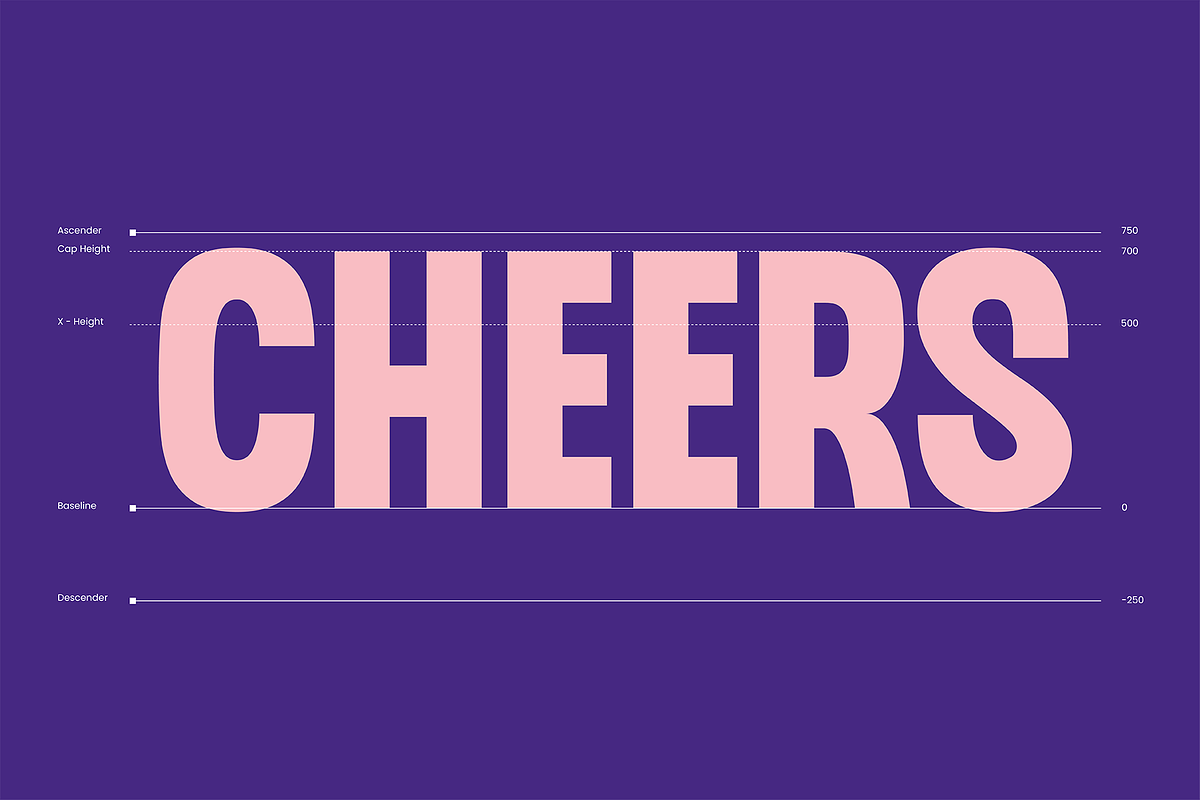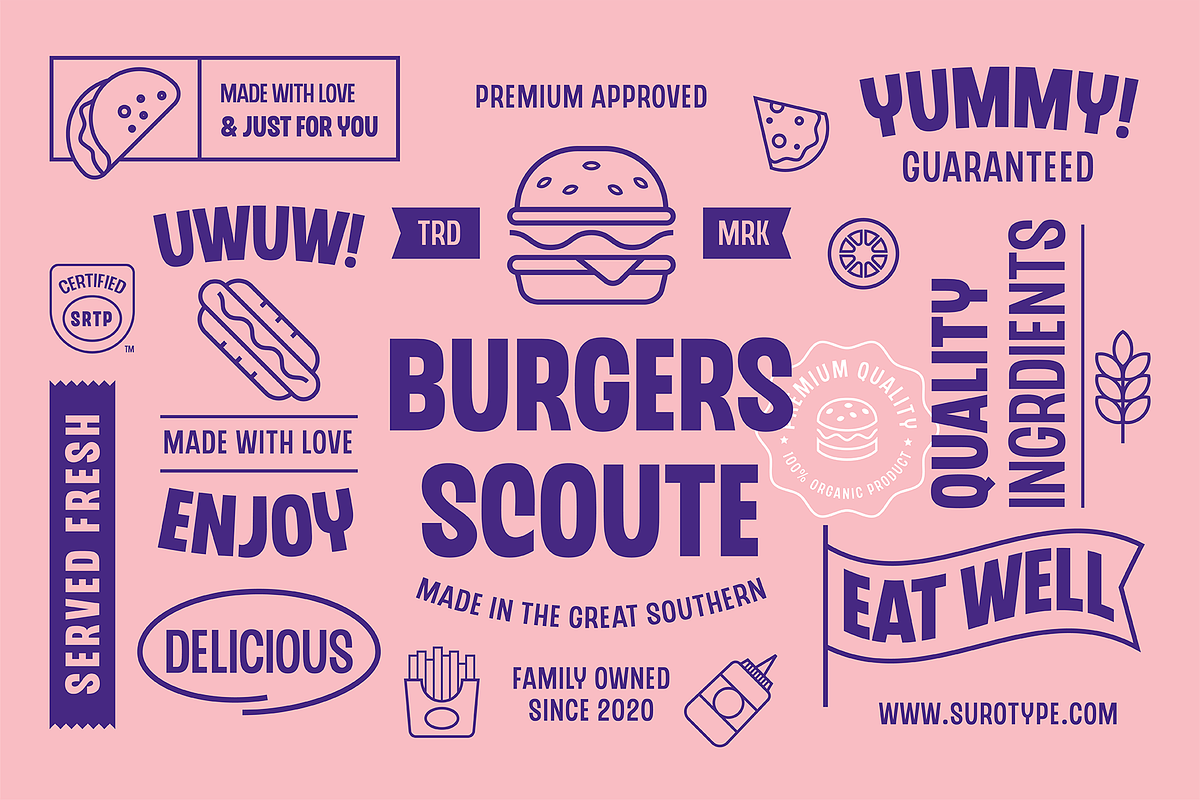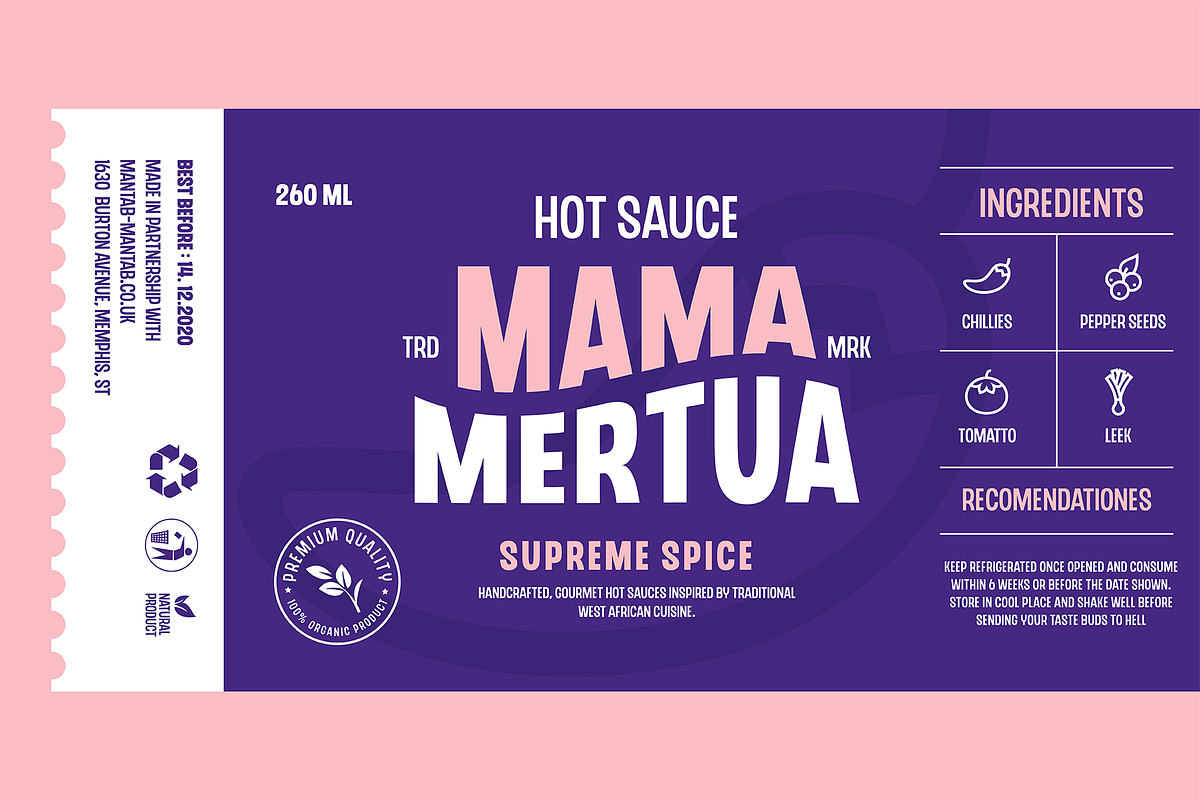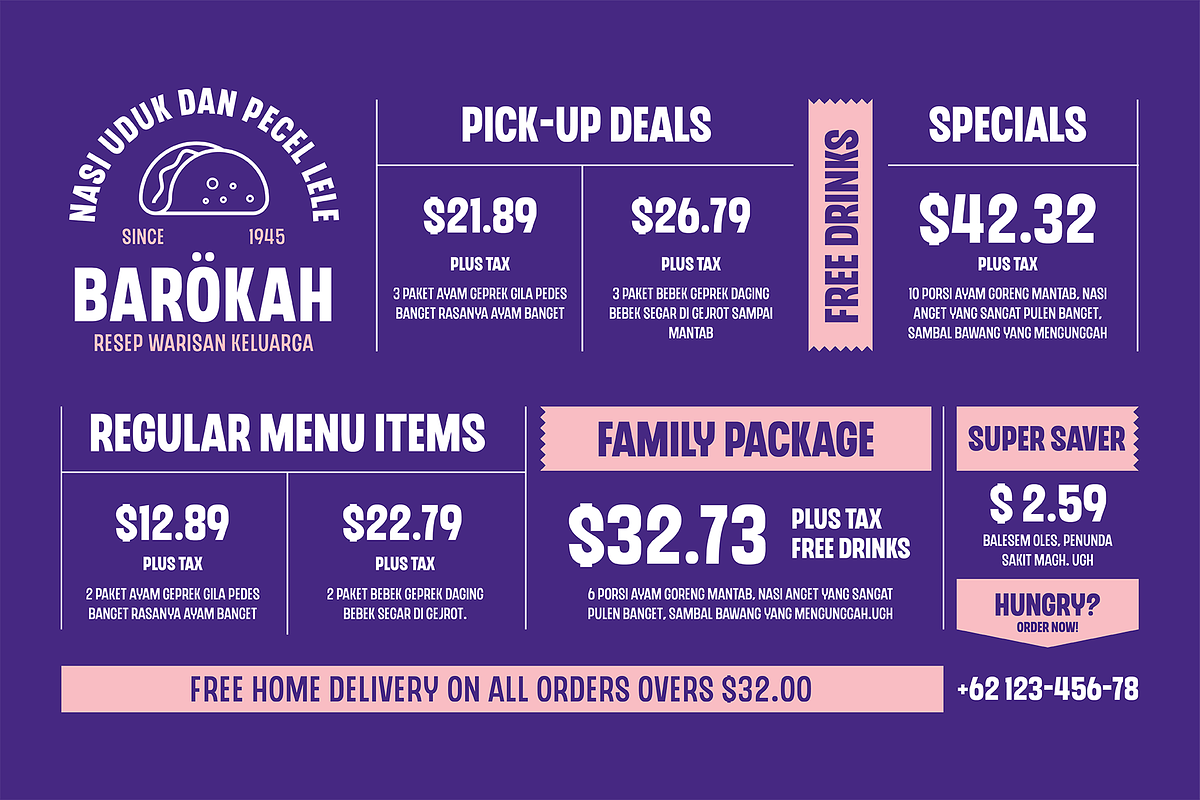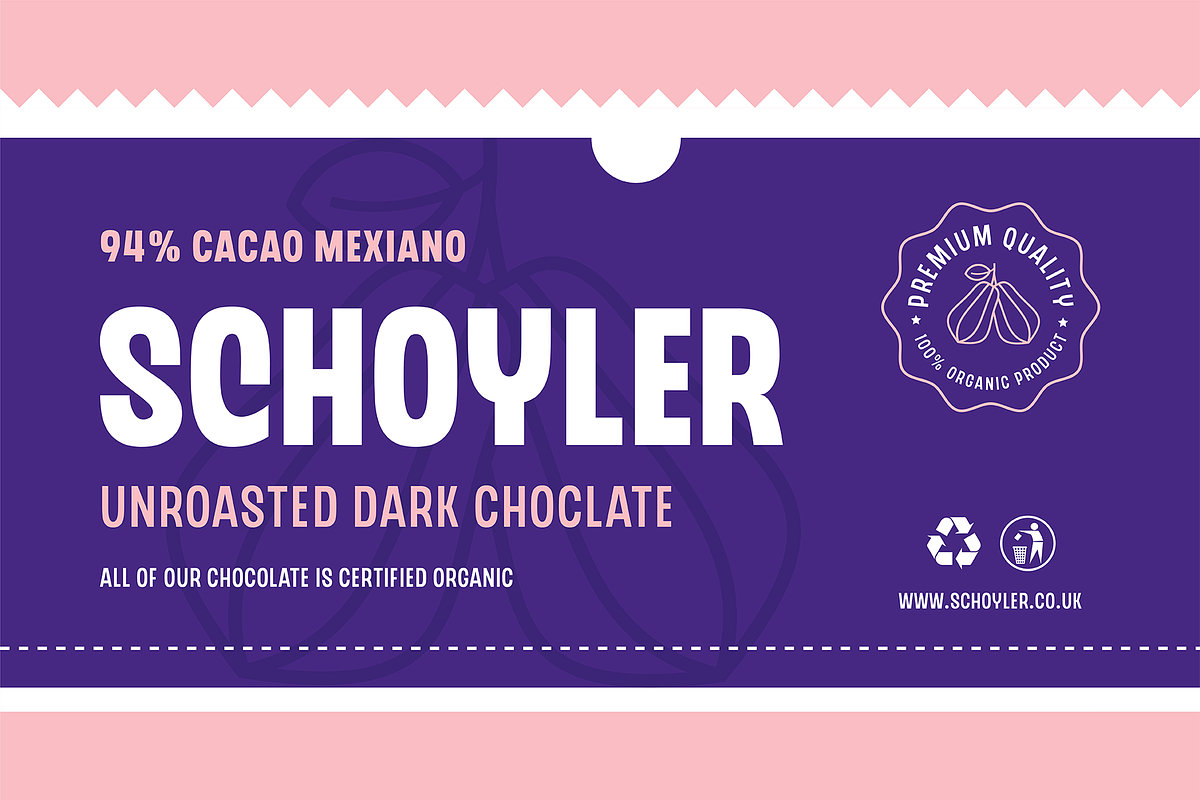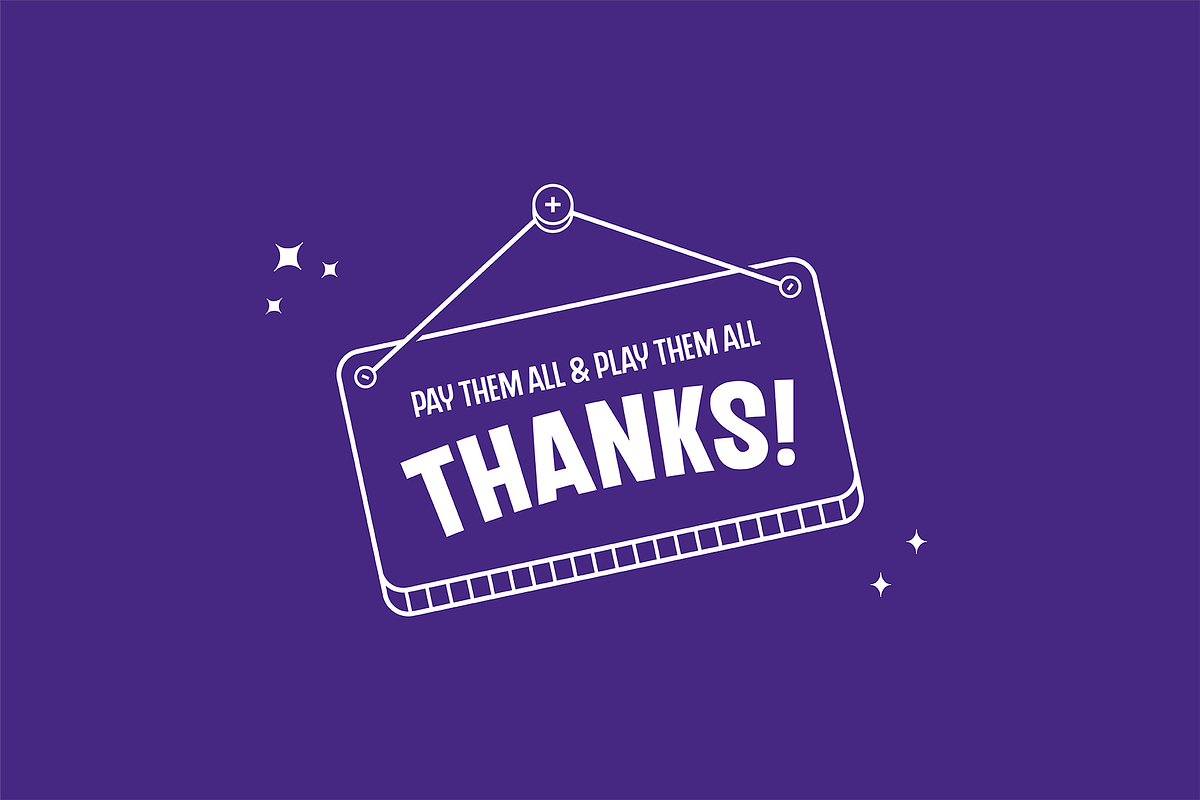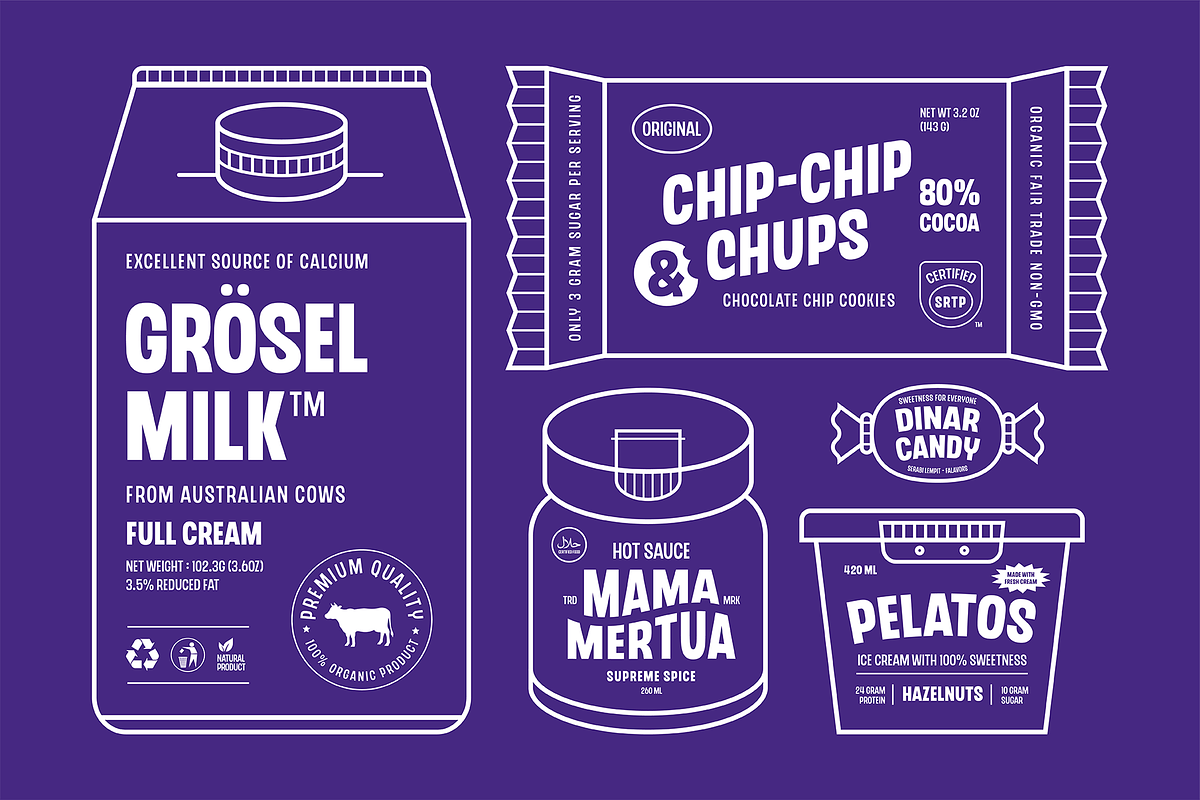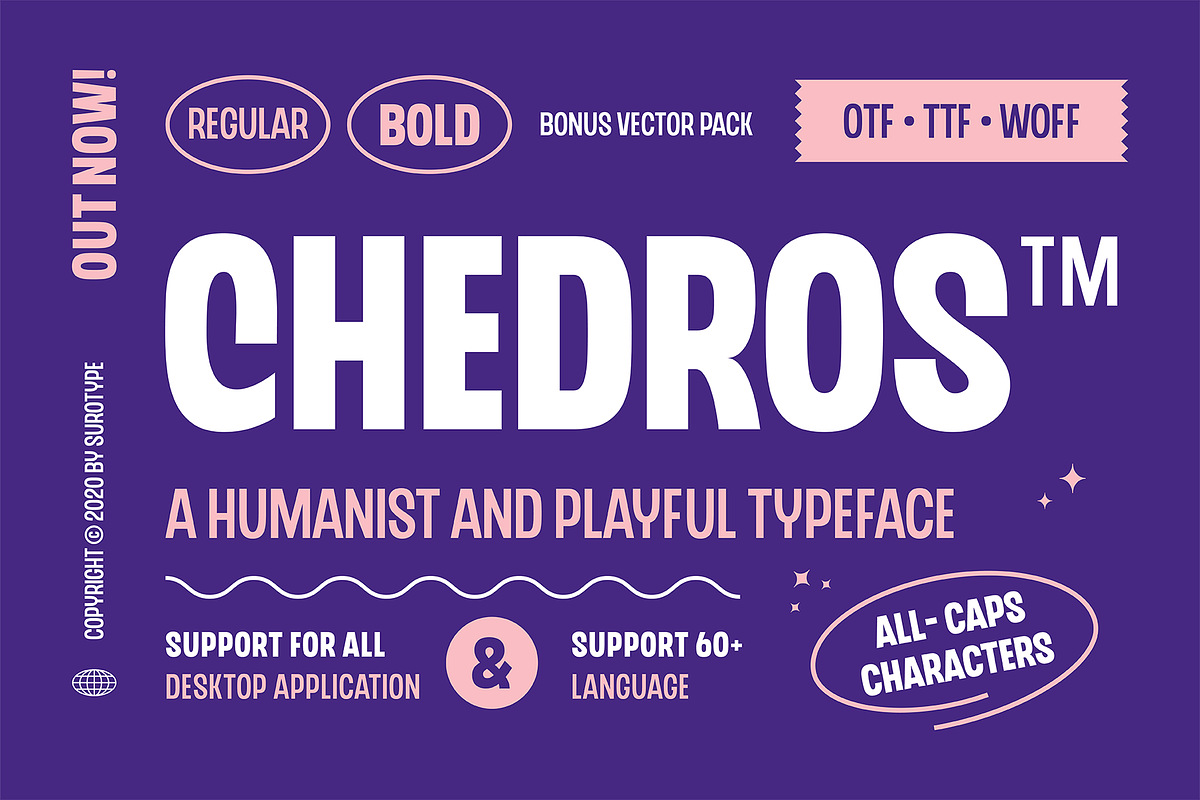
CHEDROS
Chedros is a display typeface with playful taste. It comes in two different weight, regular and bold so you can use them to your heart's content.
Chedros very suitable to use for headlines, wordmark, prints, logotype, young and playful design or anything else.